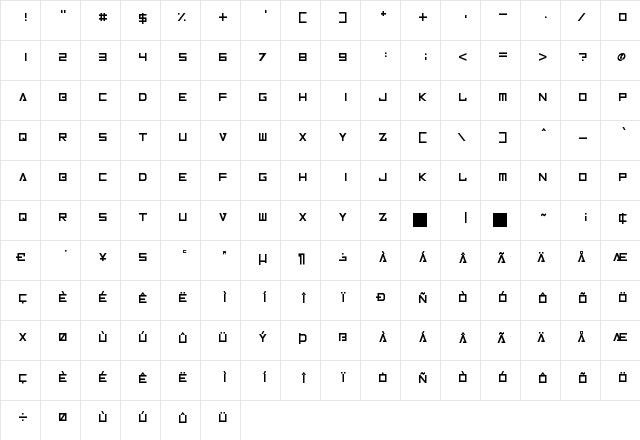
Inversionz Unboxed Regular
| Designer | Darrell Flood |
Design Context for Inversionz Unboxed Typeface
Inversionz Unboxed offers clean, dependable letterforms without strong stylistic allegiance, making it a practical choice for designers who need flexibility.